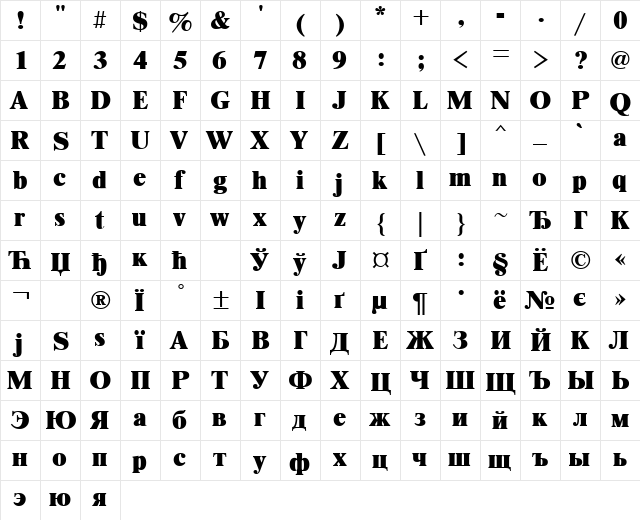
TimesETX Rus
Design Context for TimesETX Typeface
TimesETX offers clean, dependable letterforms without strong stylistic allegiance, making it a practical choice for designers who need flexibility.